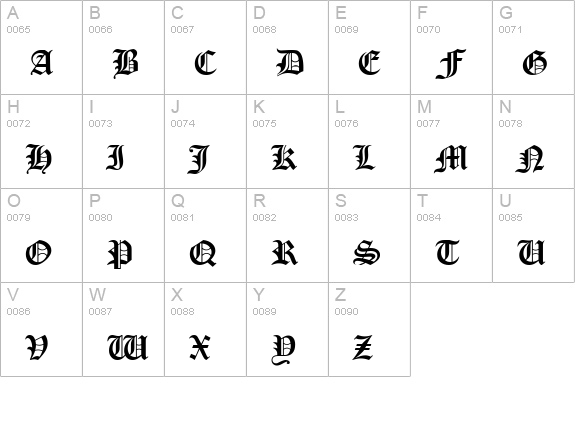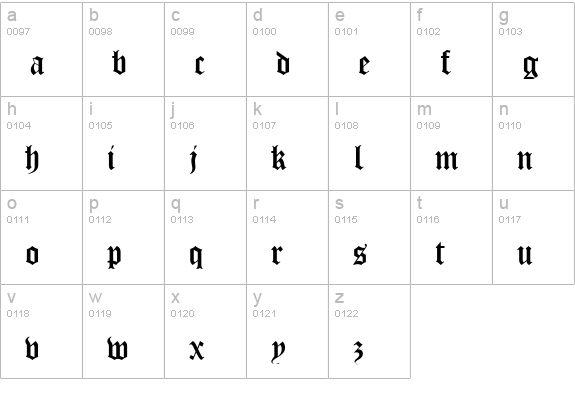
Midevil Normal Font Details
Midevil Normal is the standard, neutral variant in the Midevil typeface family \xE2\x80\x94 well suited to general body text, paragraphs, and standard typographic work.
Midevil Normal font is a classic and elegant typeface that exudes a sense of timeless sophistication. With its delicate serifs and graceful letterforms, this font is perfect for adding a touch of refinement to any project. Whether you're designing a vintage-inspired logo or creating a stylish invitation, Midevil Normal font will bring a touch of class to your work. The best part? Midevil Normal font is completely free to download at FontsMarket.com. That's right, you can elevate your designs with this beautiful font without spending a dime. So why wait? Head over to FontsMarket.com now and start using Midevil Normal font to add a touch of elegance to your projects.